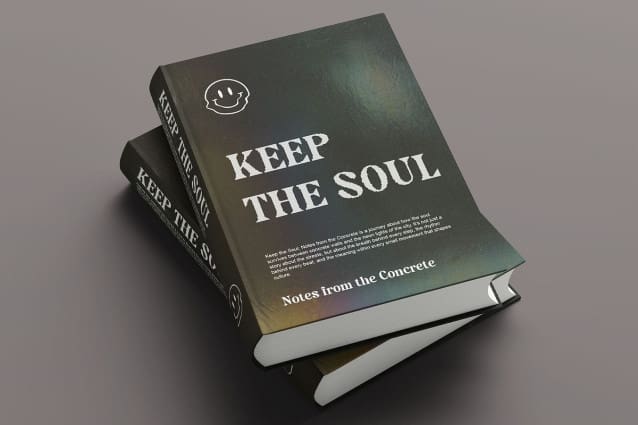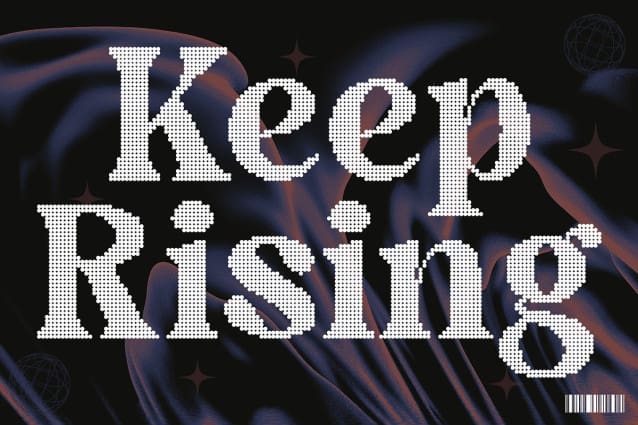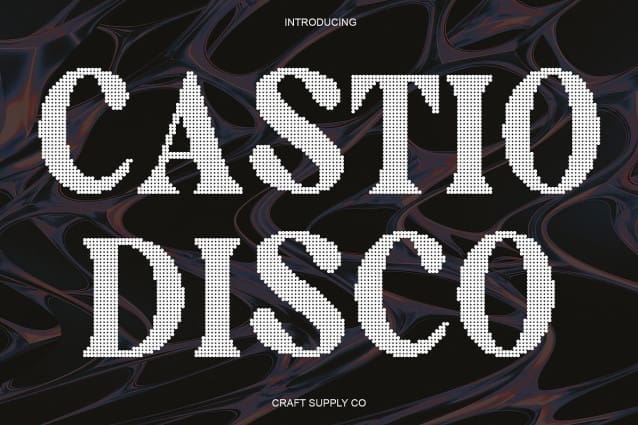
Castio Disco Font : Bold Modern Serif with Disco Effect, Where Modern Elegance Meets Lively Glamour.Sleek Design with Contemporary Character This is a modern serif font that merges bold precision with refined beauty. Its clean lines and well-balanced proportions create a sense of confidence and sophistication, while subtle geometric influences lend it a contemporary flair. The result is a typeface that feels both timeless and distinctly modern perfect for forward-thinking designs.
Disco Effect for Dynamic Sparkle The defining feature of this font is its lively disco effect, which infuses each character with shimmer and motion. The gentle shine and rhythmic energy of this finish bring a glamorous and celebratory tone to the text, transforming simple words into eye-catching statements full of vibrancy and charm.
Ideal for Modern Branding and Editorial Design Whether used in branding, posters, or editorial layouts, this font commands attention with its combination of style and playfulness. Its bold yet graceful forms make it suitable for luxury logos, event titles, or creative campaigns that seek to express both sophistication and joy.
A Balance of Style and Expression This font stands out by blending structural elegance with expressive energy. The fusion of geometric strength, soft curves, and radiant disco flair creates a truly versatile font one that embodies the essence of modern design, sparkling personality, and unmistakable allure.